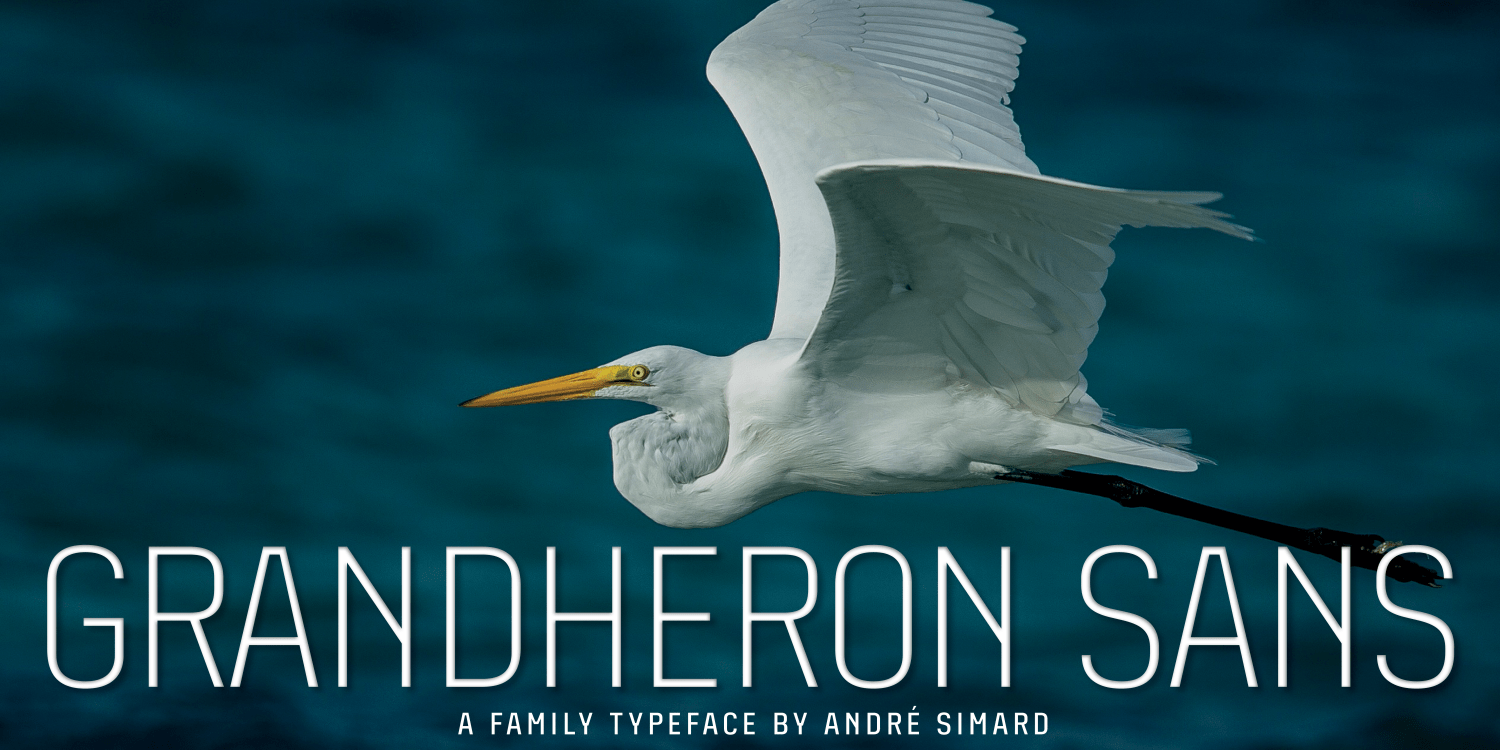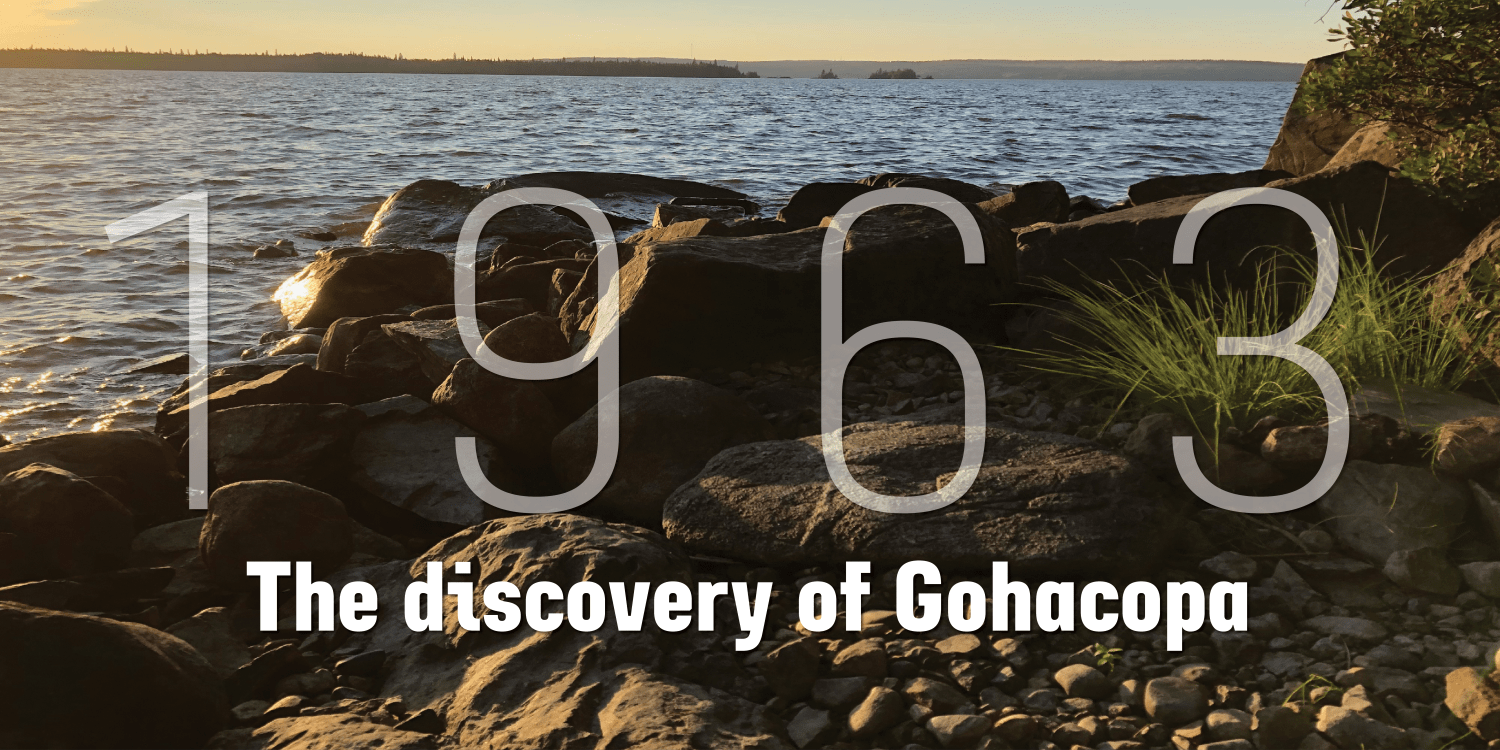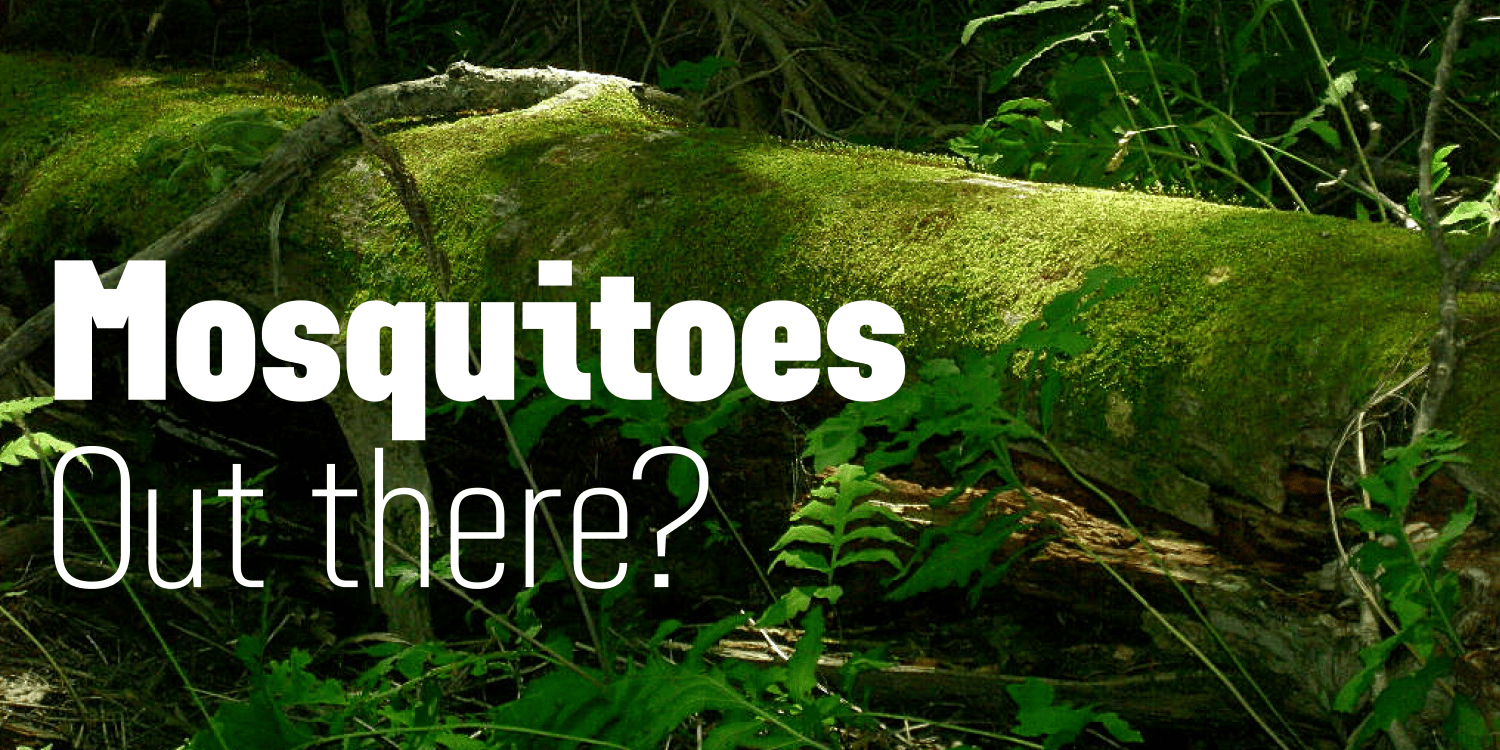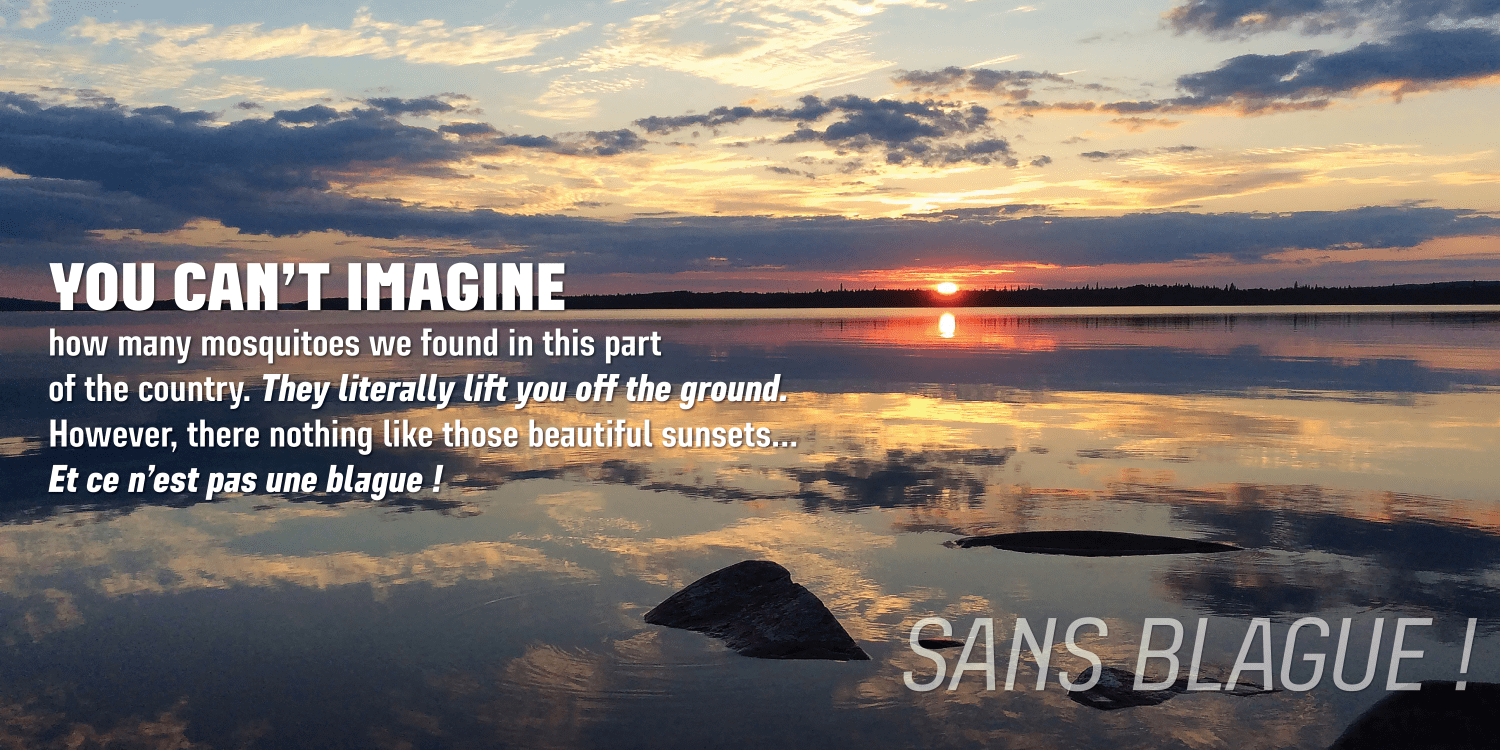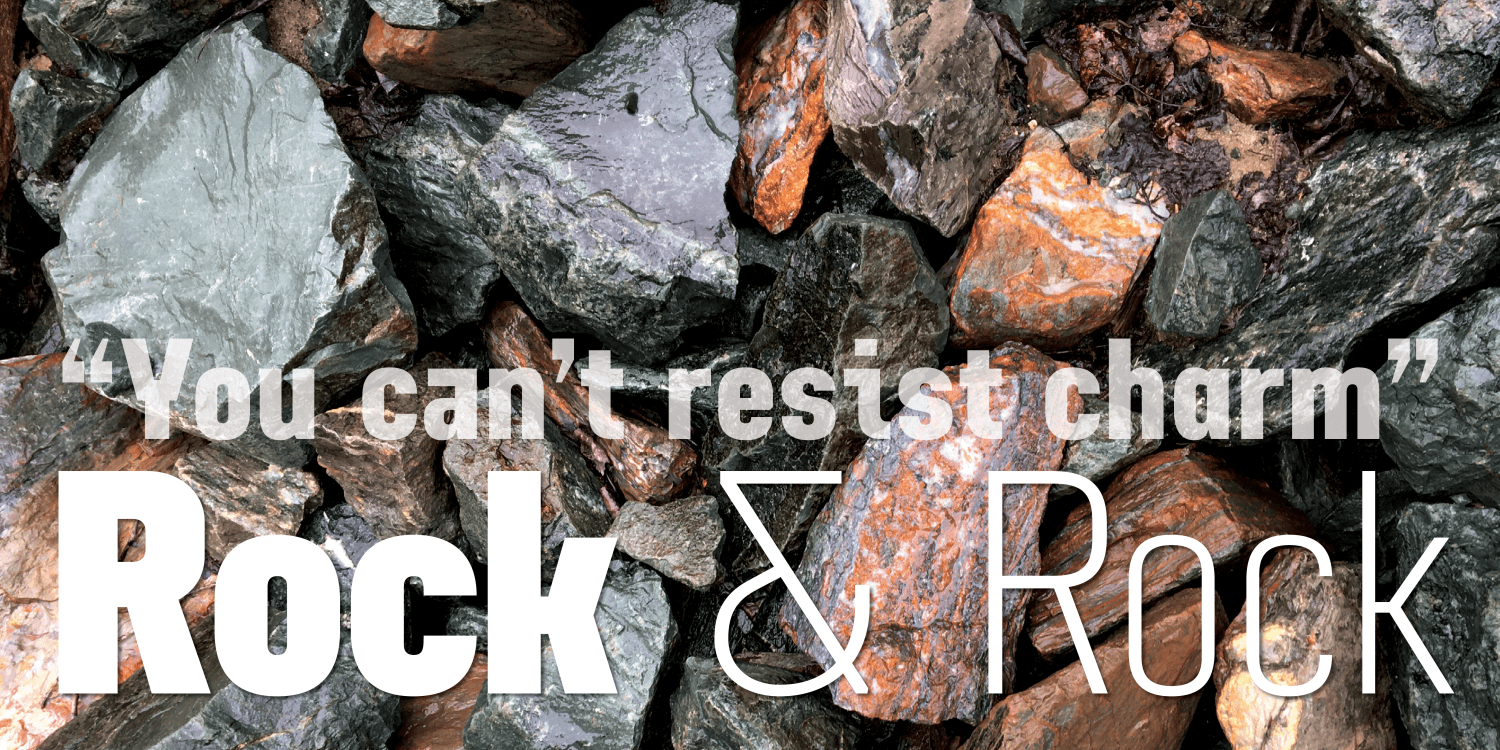
Grandheron Sans New
Font Family by André Simard
If you are looking for a font with very good readability, even with its square appearance and condensed design, Grandheron is for you. You should find attractive the design of some glyphs like those one [a,f,k,l,v,y, AJKMNVXY] to name a few. Grandheron could be use as well in small size as in huge size. You will certainly like its Thin or Light font which give an awsome effect for titles, subtitles, caption for magazines related to fashion, advertising or even corporate design.
You could easily mix Grandheron with serif typeface to get a perfect team in design. There is no limit to create great designs with this large typeface family, so enjoy!